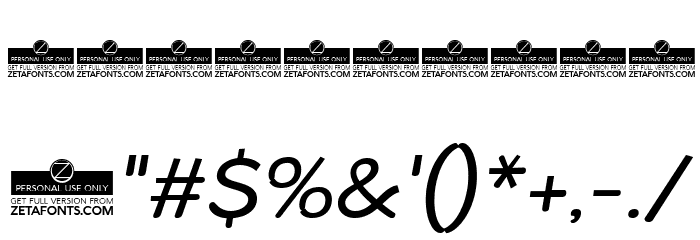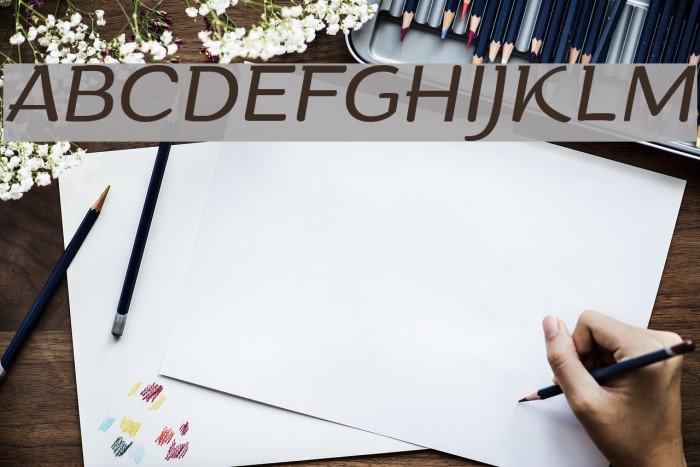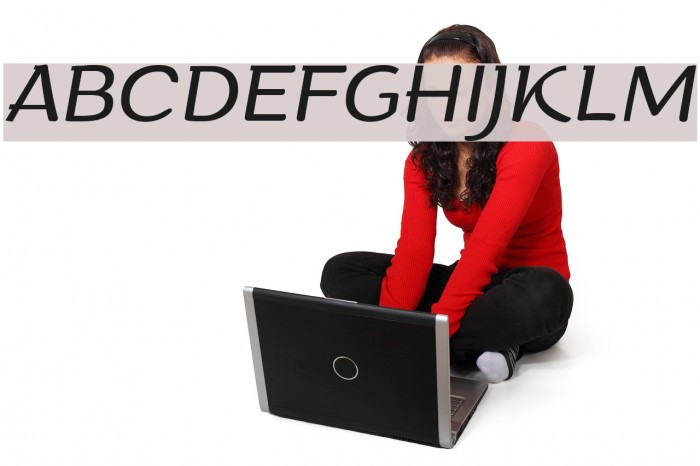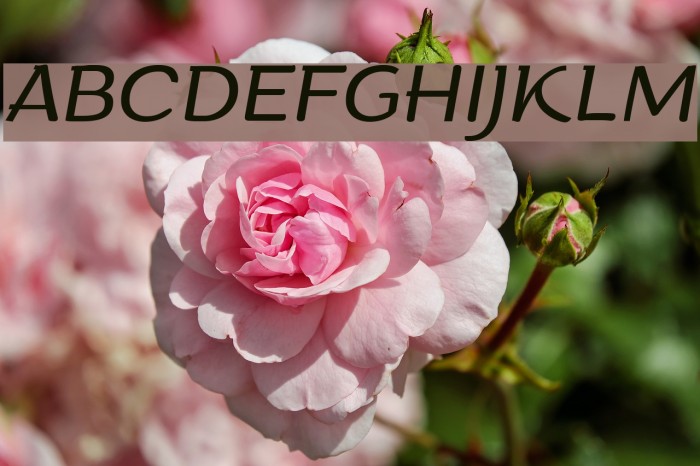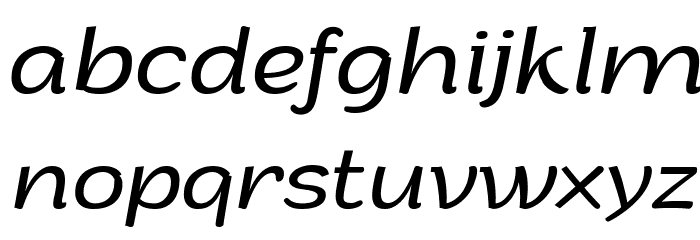
Arturo Trial Light Italic Font
This font features a light and elegant design with a subtle italic slant, offering a refined and sophisticated appearance. The characters are well-balanced with smooth curves and a gentle flow, making it ideal for conveying a sense of grace and modernity. The uppercase letters maintain a consistent height, while the lowercase letters exhibit a slight variation in size, adding to the font's dynamic feel. The numerals and special characters are designed to complement the overall style, ensuring readability and aesthetic appeal.
A light, elegant italic font with smooth curves and a modern feel.
• Proposed Projects: Ideal for fashion magazines, elegant invitations, branding for luxury products, and modern web design.